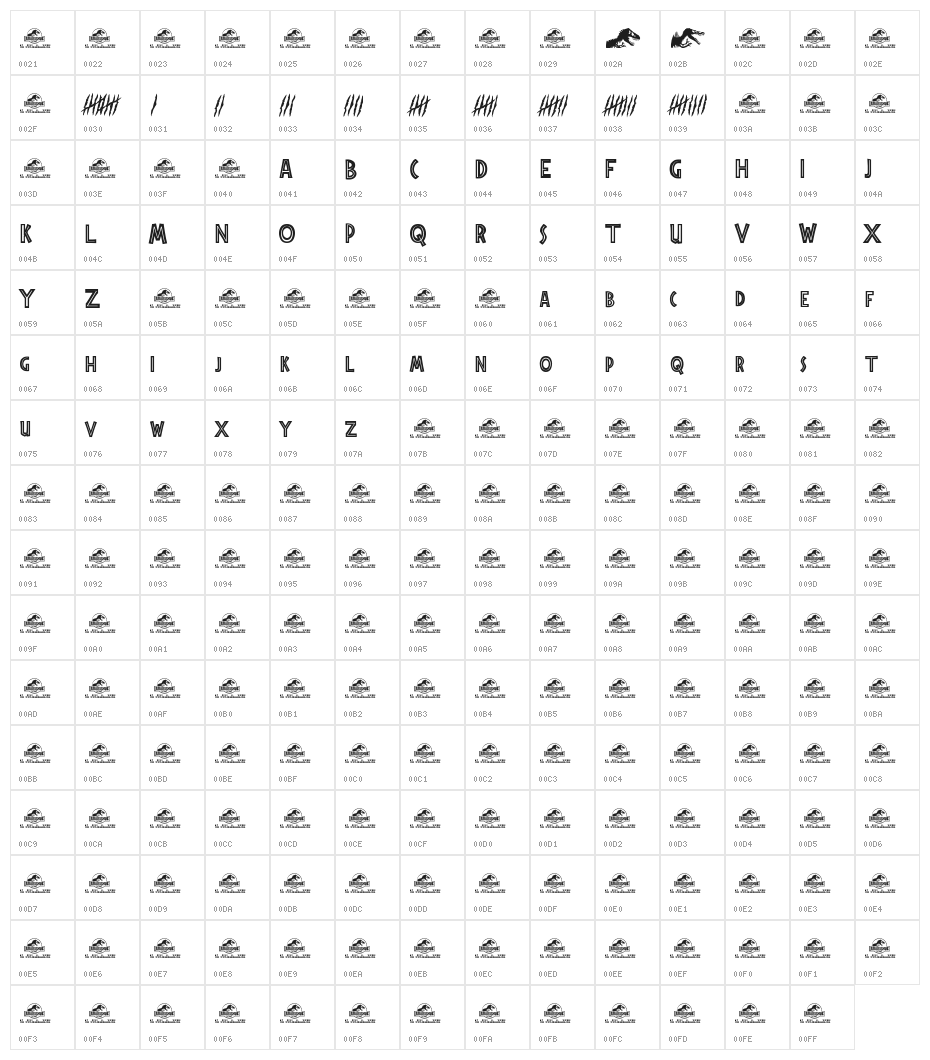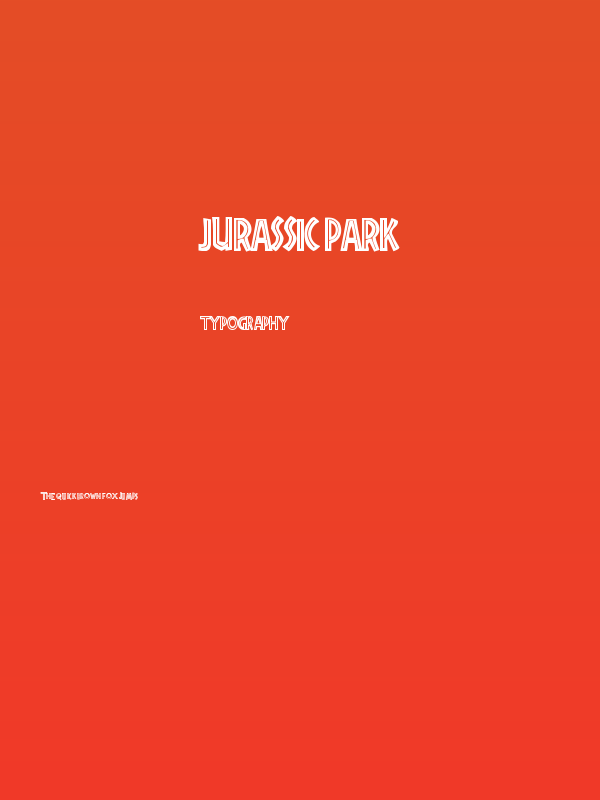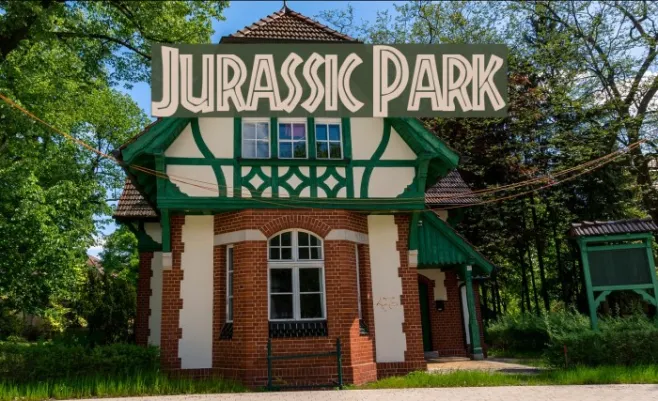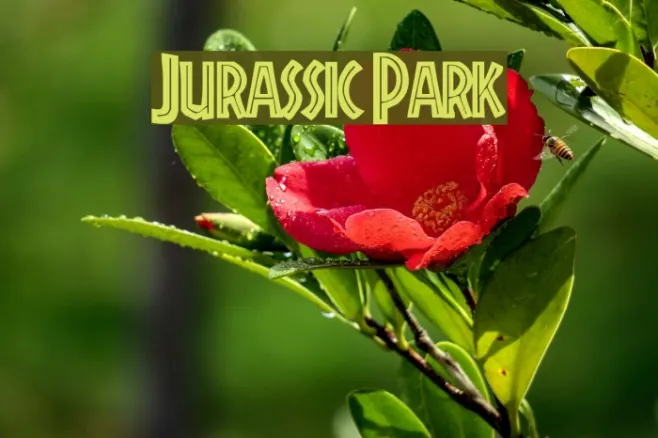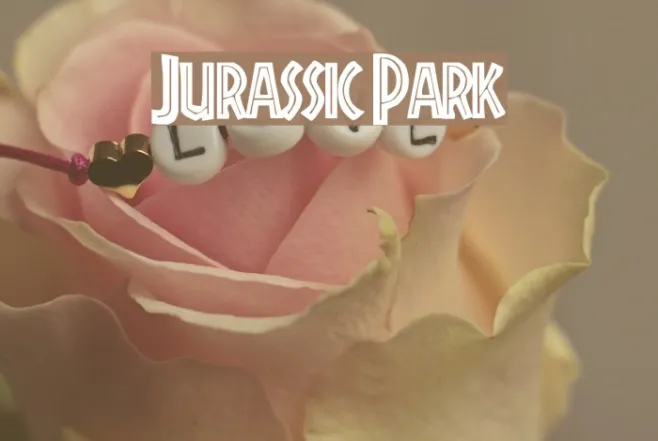
Jurassic Park Font
Jurassic Park Description
This font features a bold, dynamic style with a strong presence, reminiscent of classic adventure and exploration themes. The uppercase letters are designed with a distinct, angular form that conveys a sense of movement and energy. The strokes are thick and consistent, providing a robust and impactful appearance. The font's design is highly decorative, making it ideal for capturing attention and conveying a sense of excitement and adventure. The overall look is both vintage and modern, suitable for projects that require a bold statement.
| Overall Style | Vintage, Decorative |
| Proposed Projects | Ideal for movie posters, theme park branding, adventure-themed merchandise, and promotional materials. |